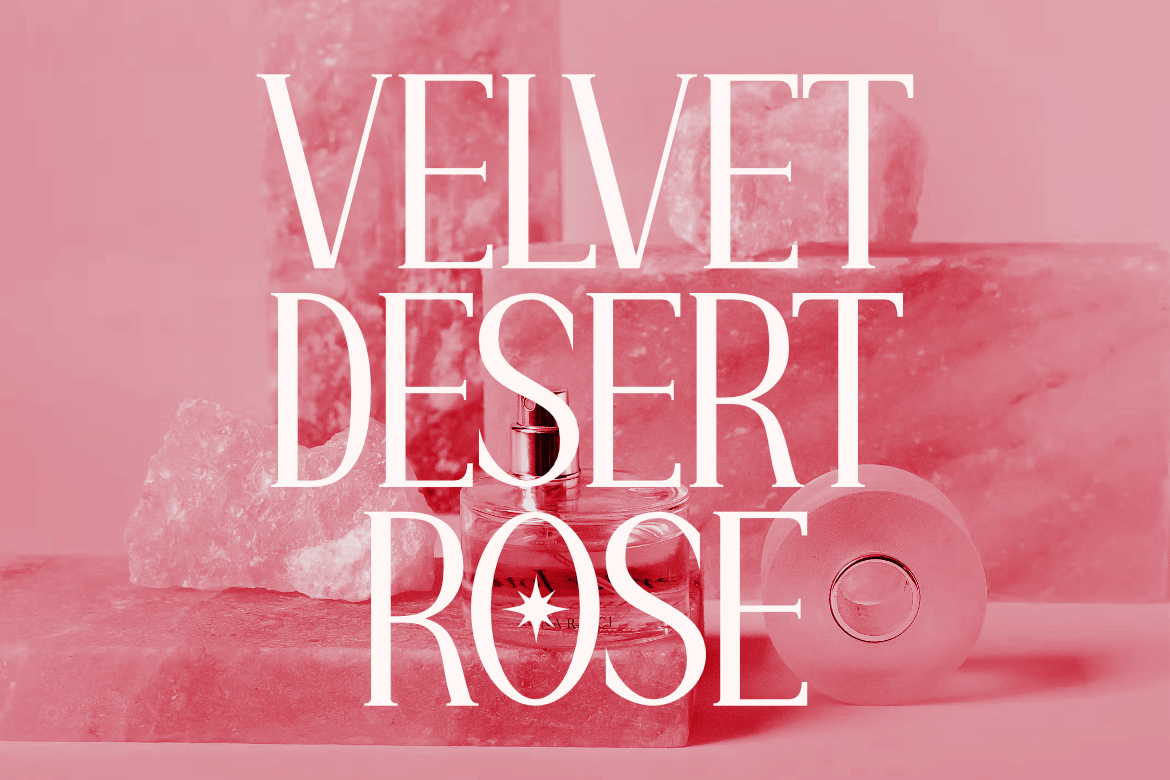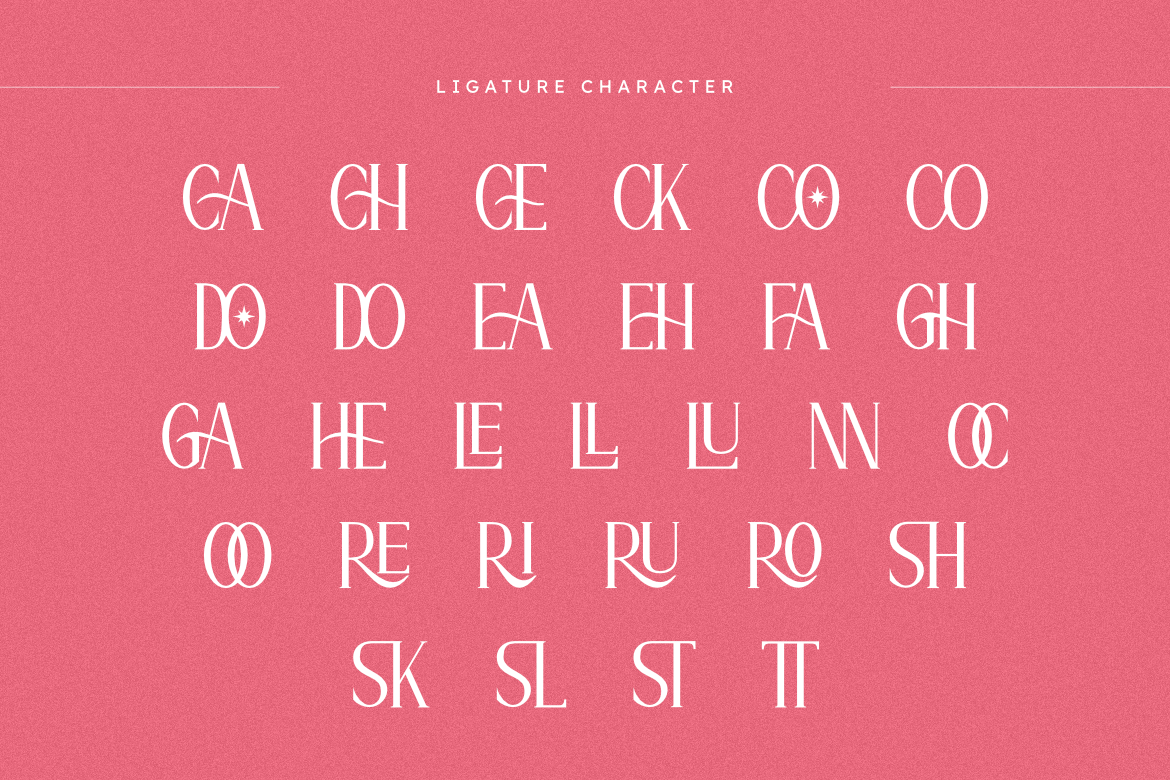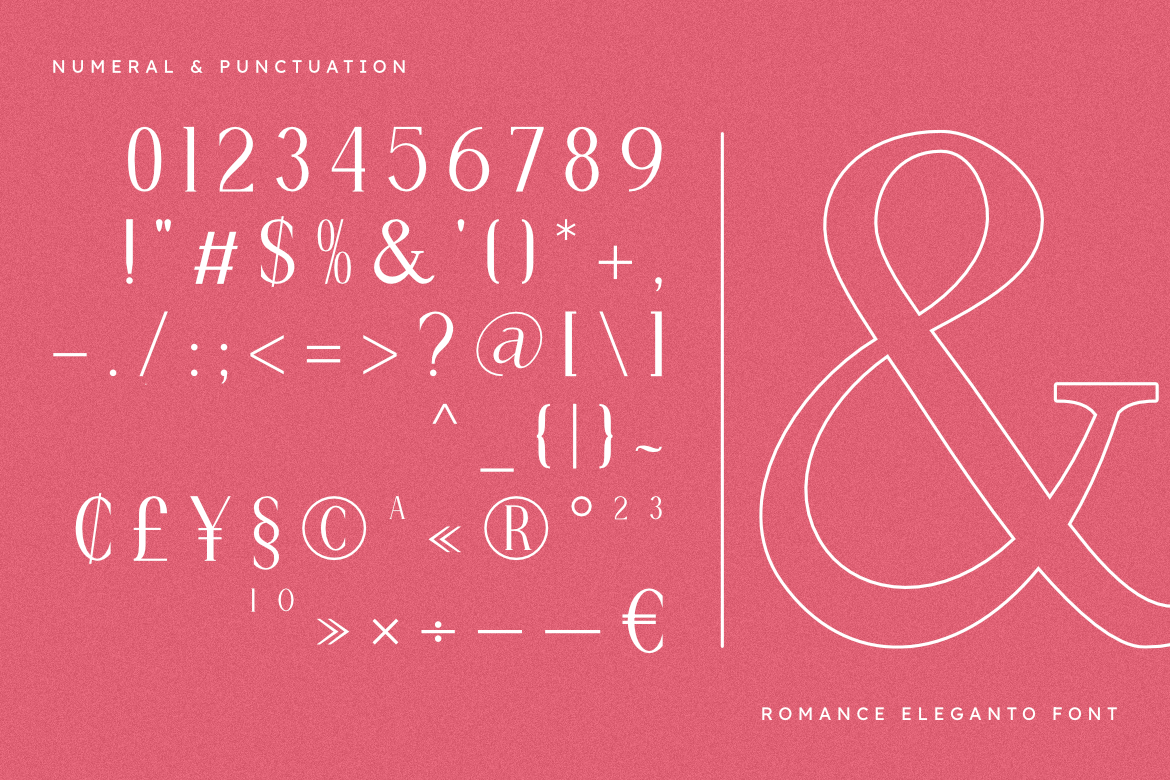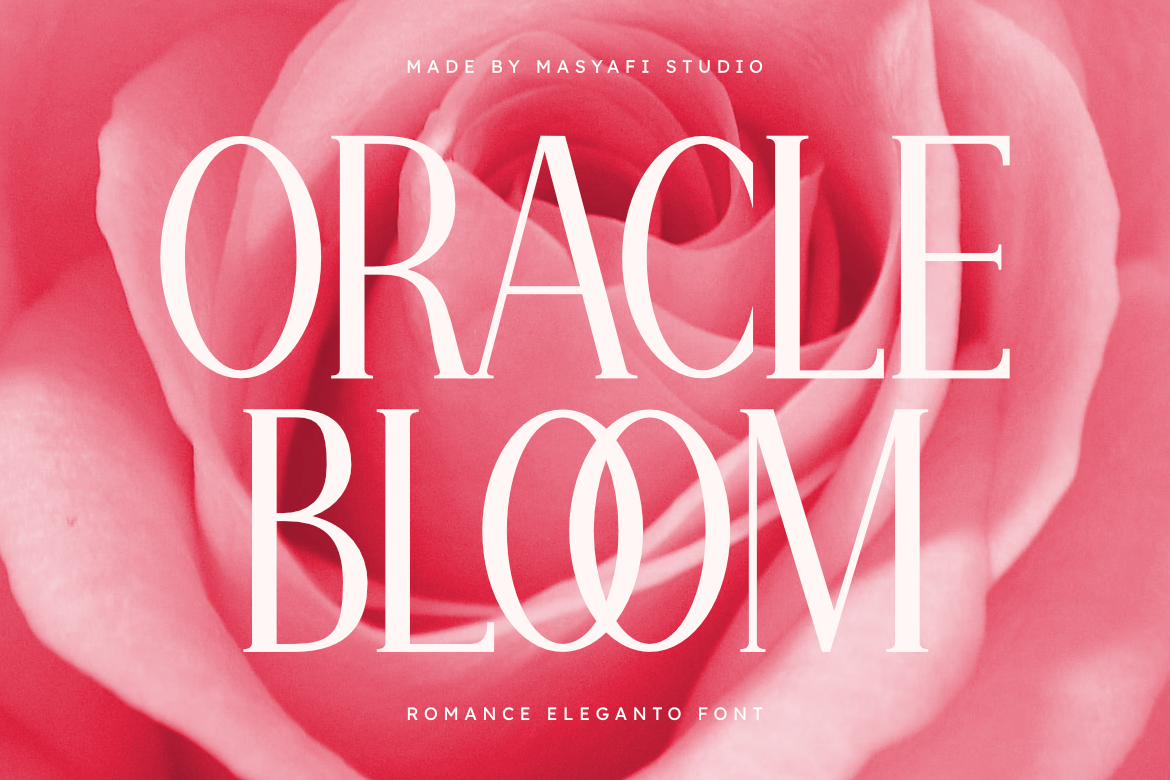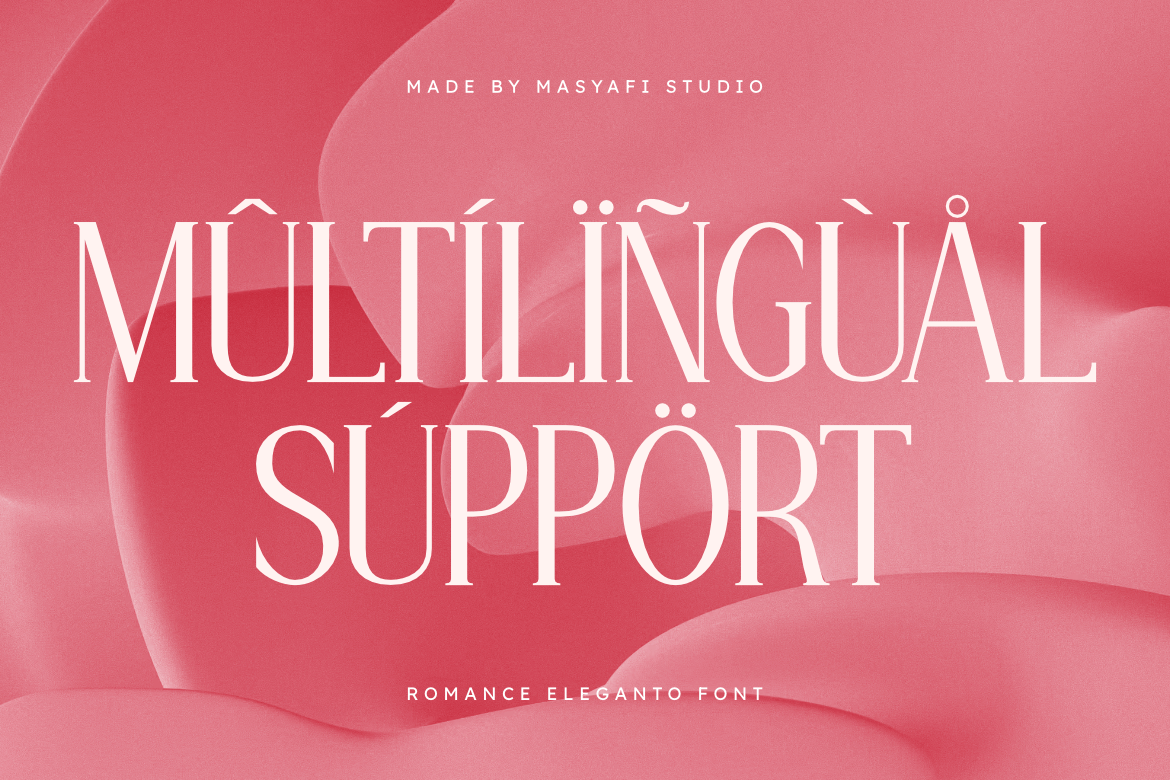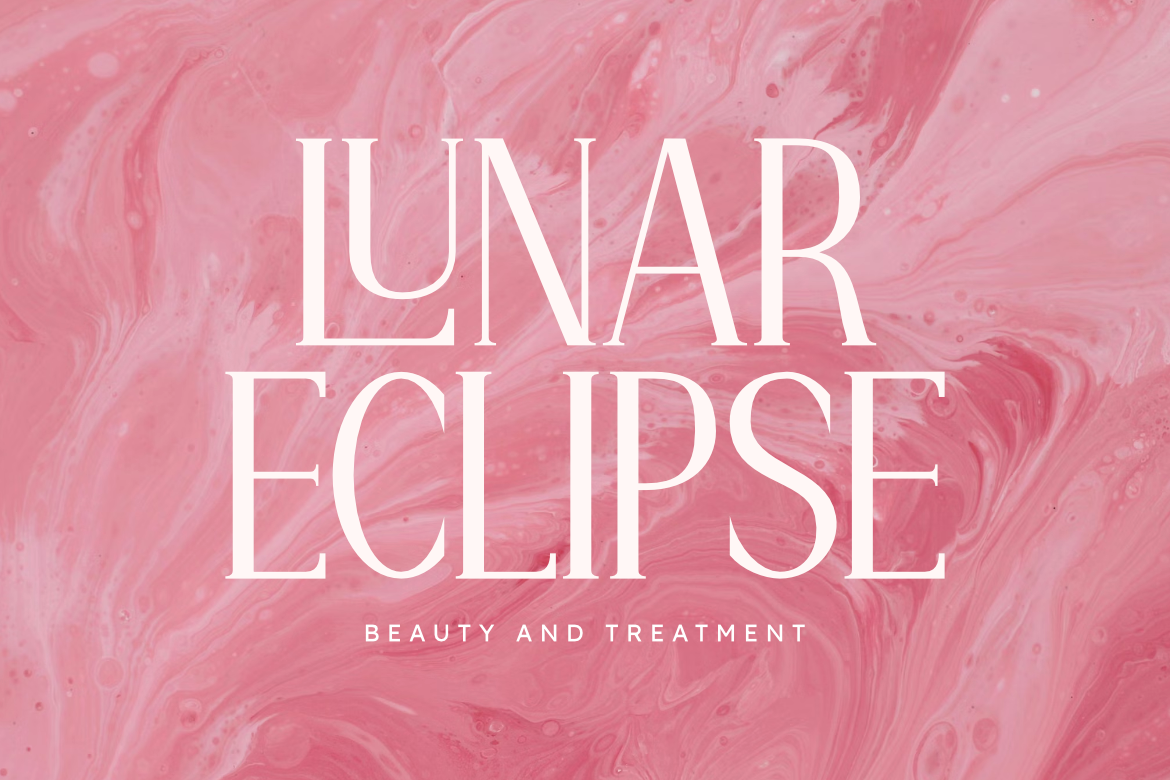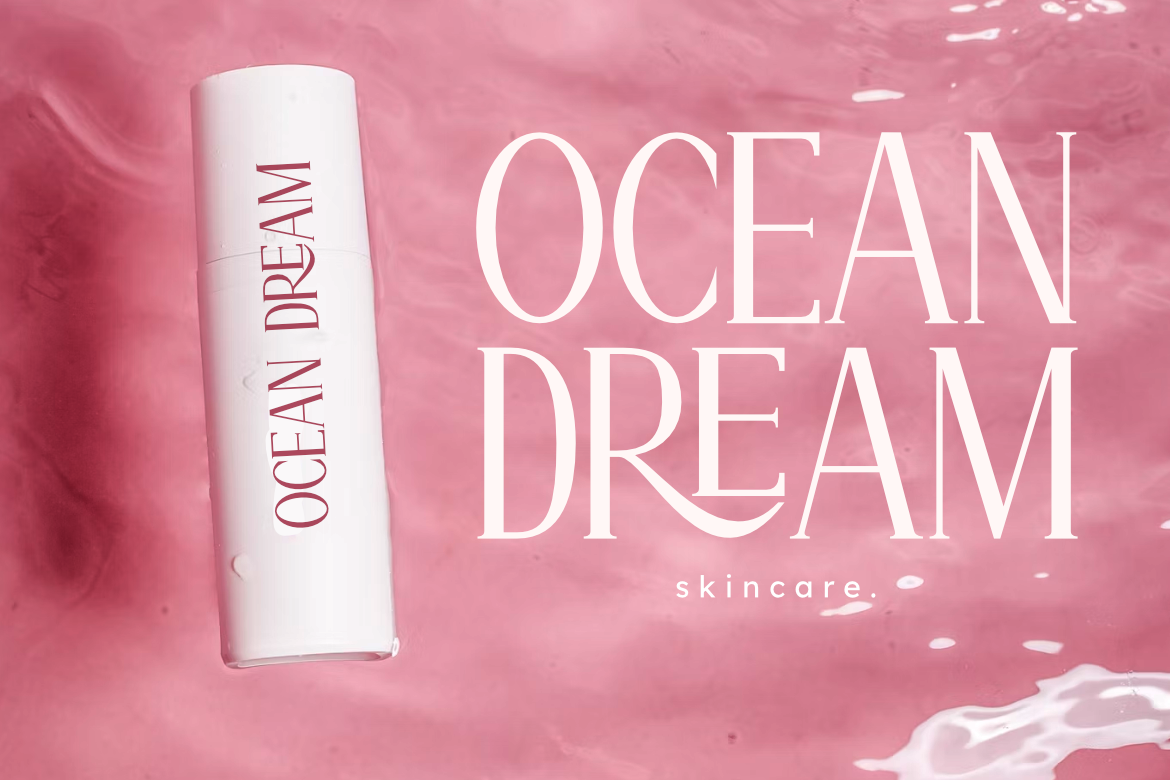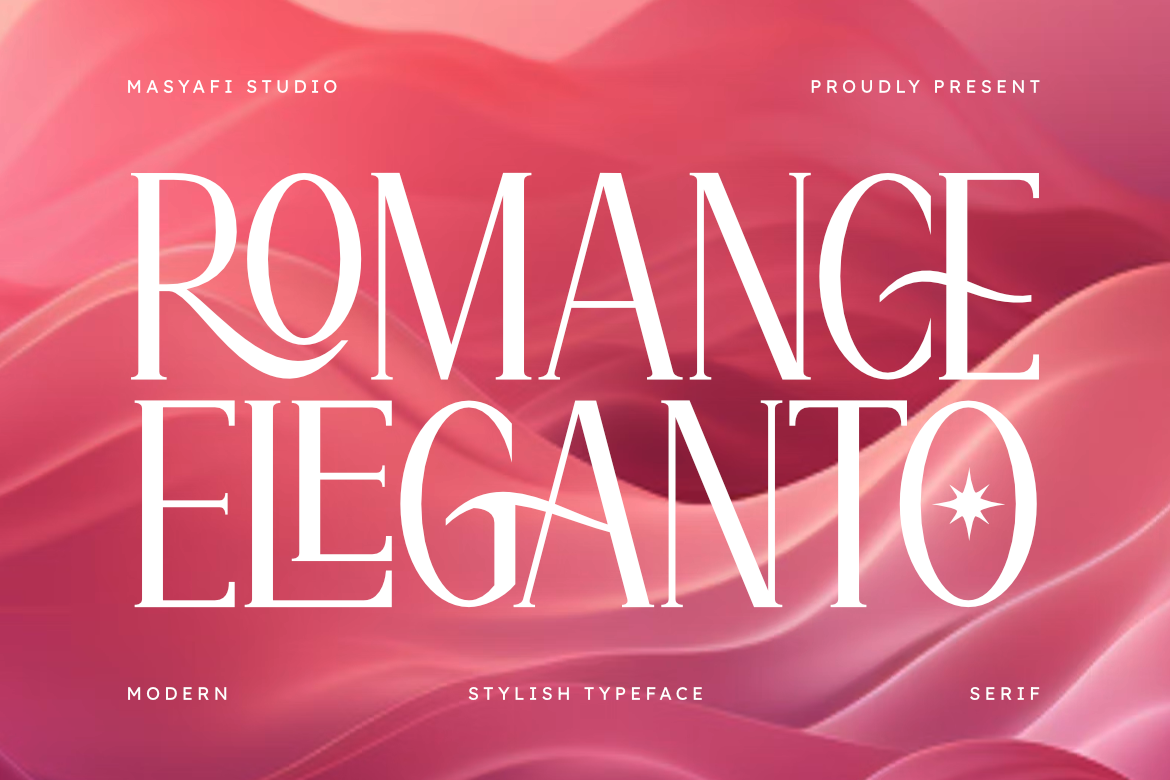
Romance Eleganto - Modern Serif Font for Luxury Logo & Branding Design
Introducing Romance Eleganto — a Modern Stylish Serif Font that blends timeless elegance with contemporary sophistication. Designed to capture beauty and class, Romance Eleganto brings graceful curves and refined letterforms that radiate charm and luxury in every detail.
Perfectly suited for fashion branding, wedding invitations, magazines, and upscale packaging, this font adds a sense of romance and elegance to any design. Its stylish serifs and delicate strokes make it both modern and classic — an ideal choice for those who appreciate artistic refinement.
Embrace elegance with Romance Eleganto — where modern grace meets timeless style.
Features
- All Caps
- Numbers & Punctuation
- Multilingual Support
- Ligatures